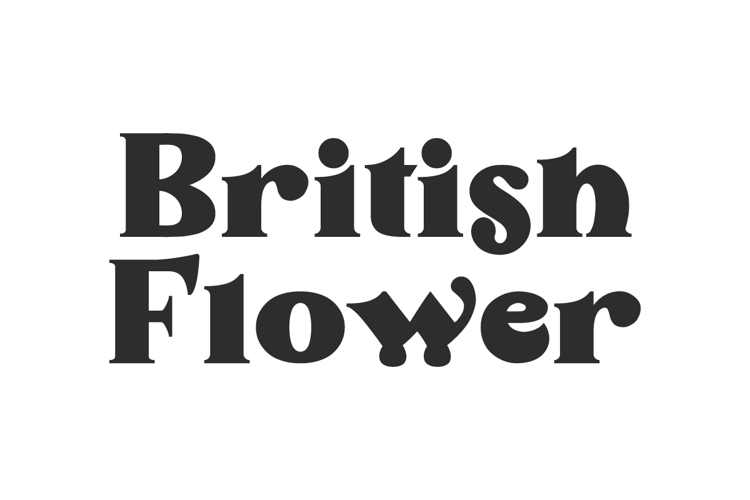
british flower
British Flower Font is a unique serif display font with an elegant modern retro touch. Carefully designed to exude strength and refinement. The font will complement your various creative needs with ease and style. Perfect for banners, billboard, blogs, brand logo, brochure, embossed design, headers, label tag, mockup, poster, quotes, stationery, titles, template, website, and more.
British Flower Font includes full set of Uppercase and Lowercase Basic Characters, Numbers, Punctuation, and Symbols. Experience timeless elegance where each character is unique and aesthetically pleasing, making it ideal for creating classy and charming designs. Perfect for cafes, clothing brand, corporate, florist, graphic design, handicraft, home furniture, photo studio, restaurant, skincare, and more.